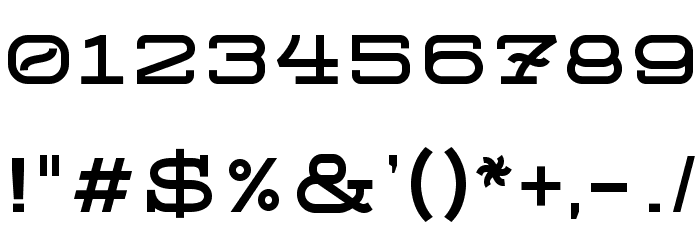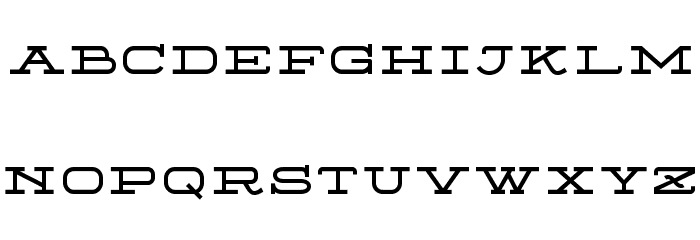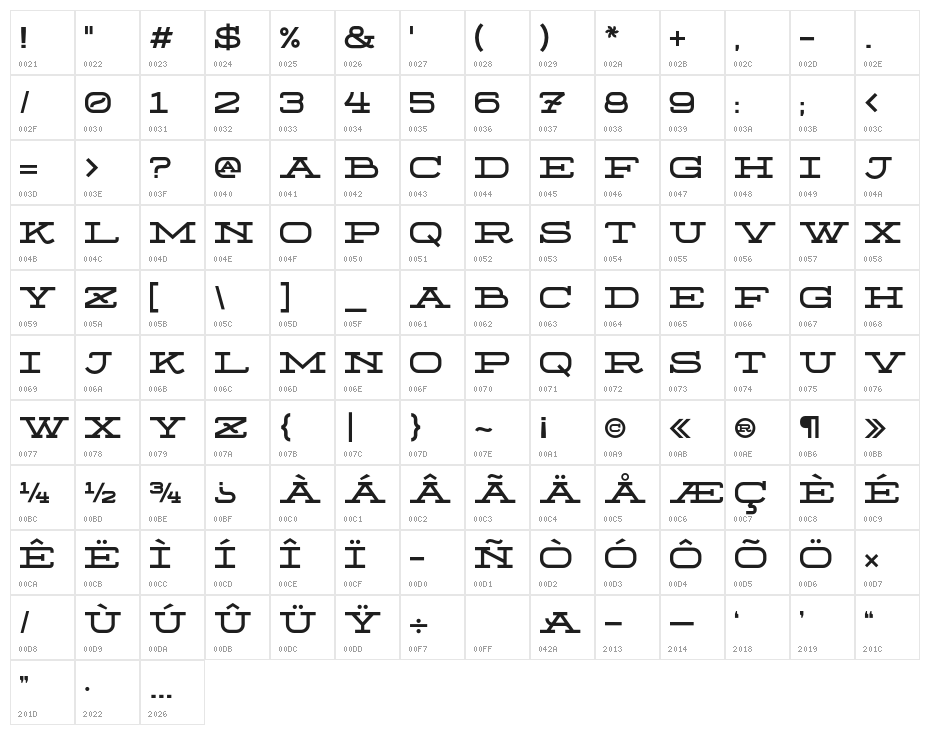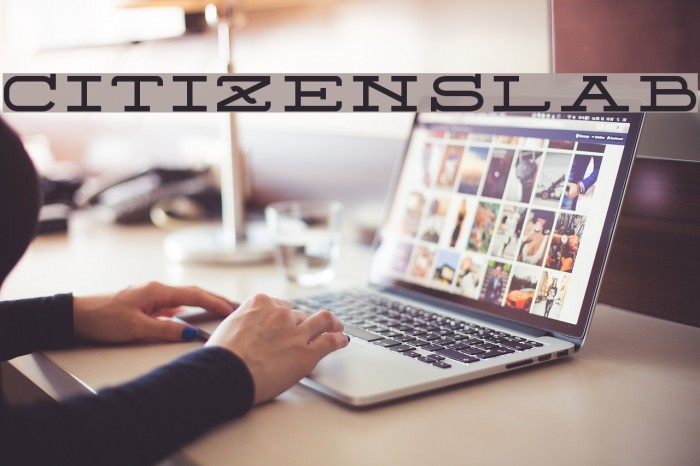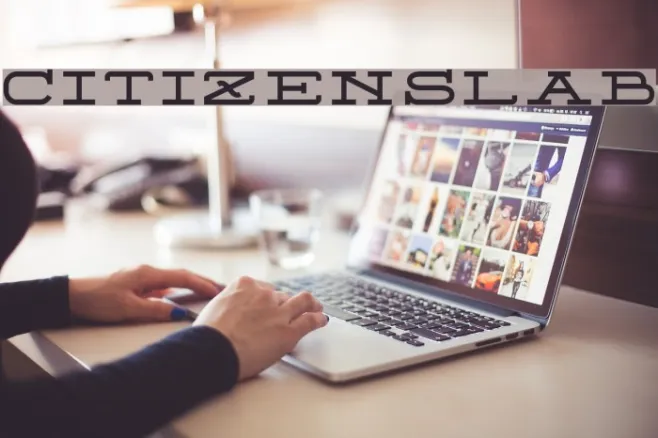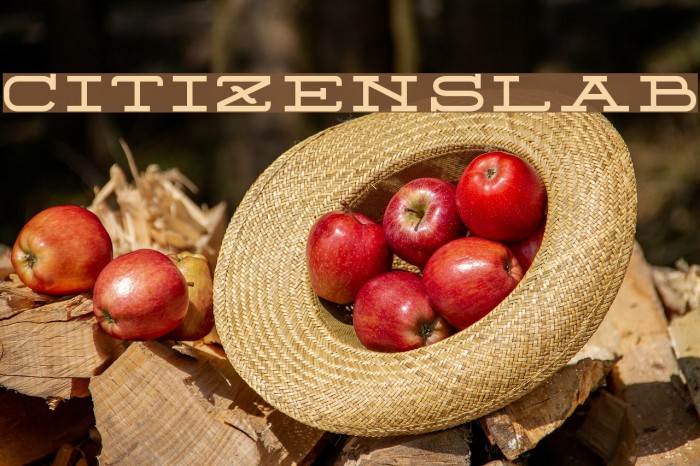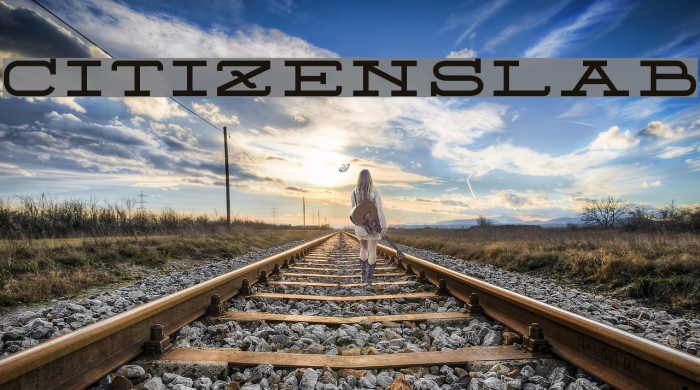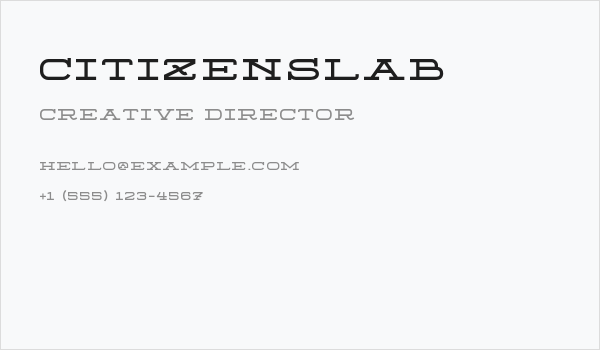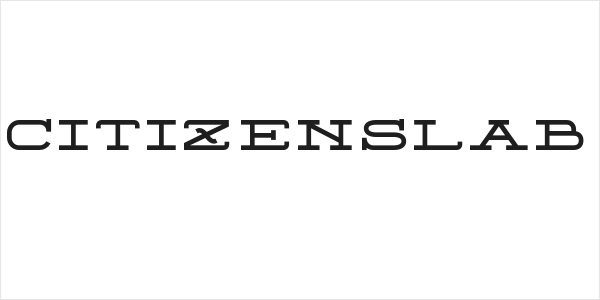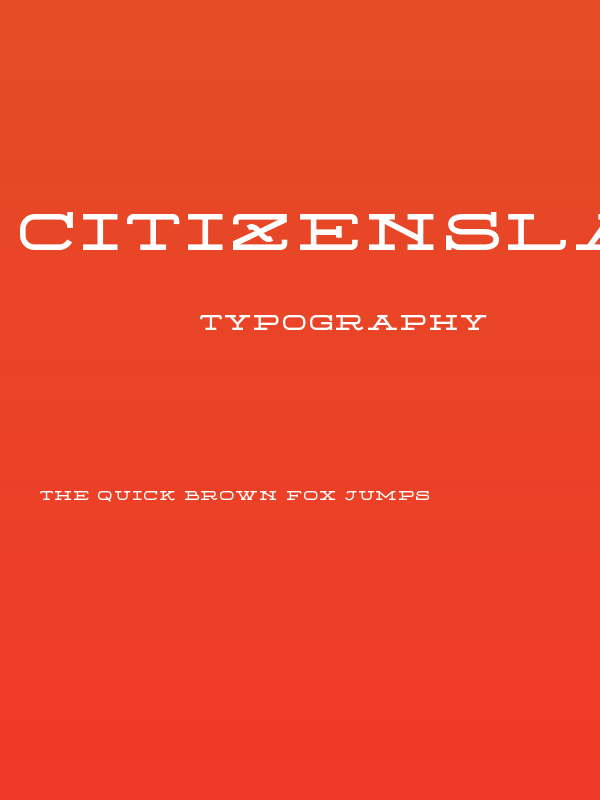
CitizenSlab Font
CitizenSlab Description
This font features a robust and sturdy design with prominent slab serifs that give it a strong and authoritative presence. The characters are well-defined with a geometric structure, providing a modern yet timeless appeal. The uppercase letters are bold and commanding, while the lowercase letters maintain a consistent weight and style. The numerals are clear and easy to read, making them suitable for various applications. Special characters are included, adding versatility to the font's use. Overall, this font combines traditional serif elements with a contemporary twist, making it suitable for a wide range of design projects.
| Proposed Projects | Ideal for branding, headlines, posters, and editorial design where a strong, impactful typeface is needed. |